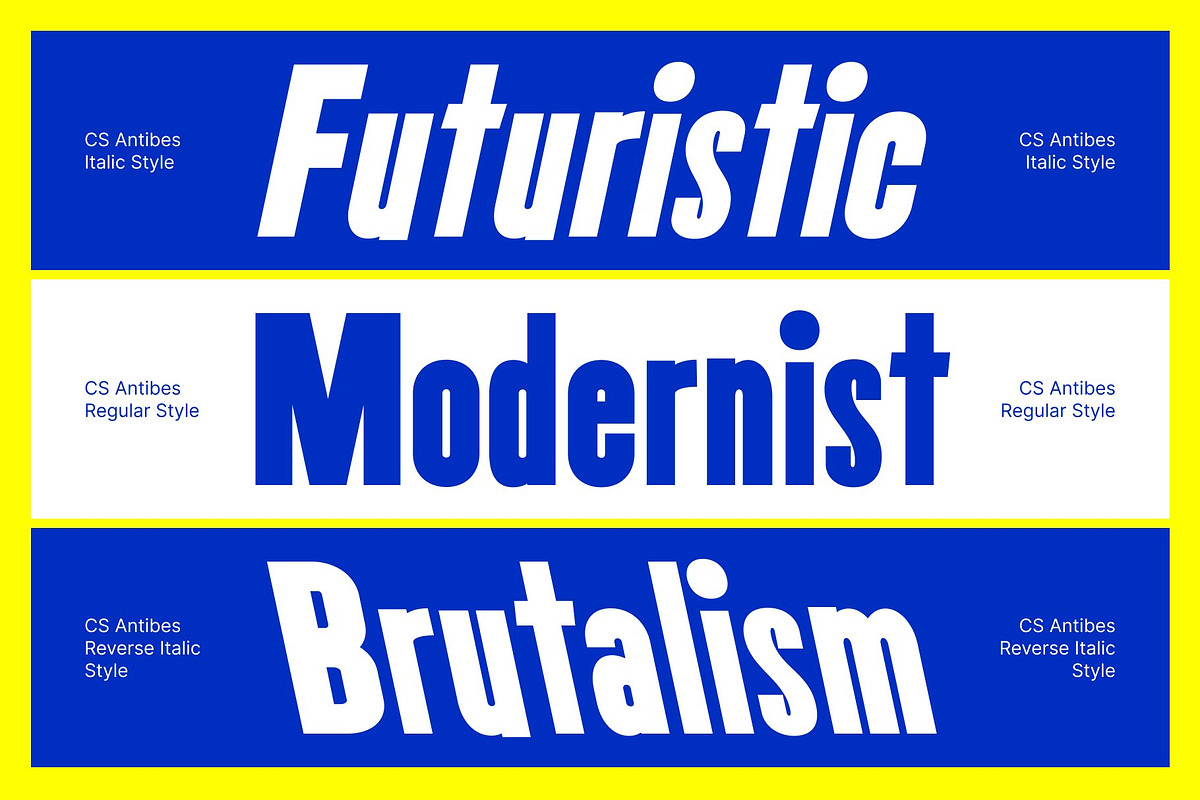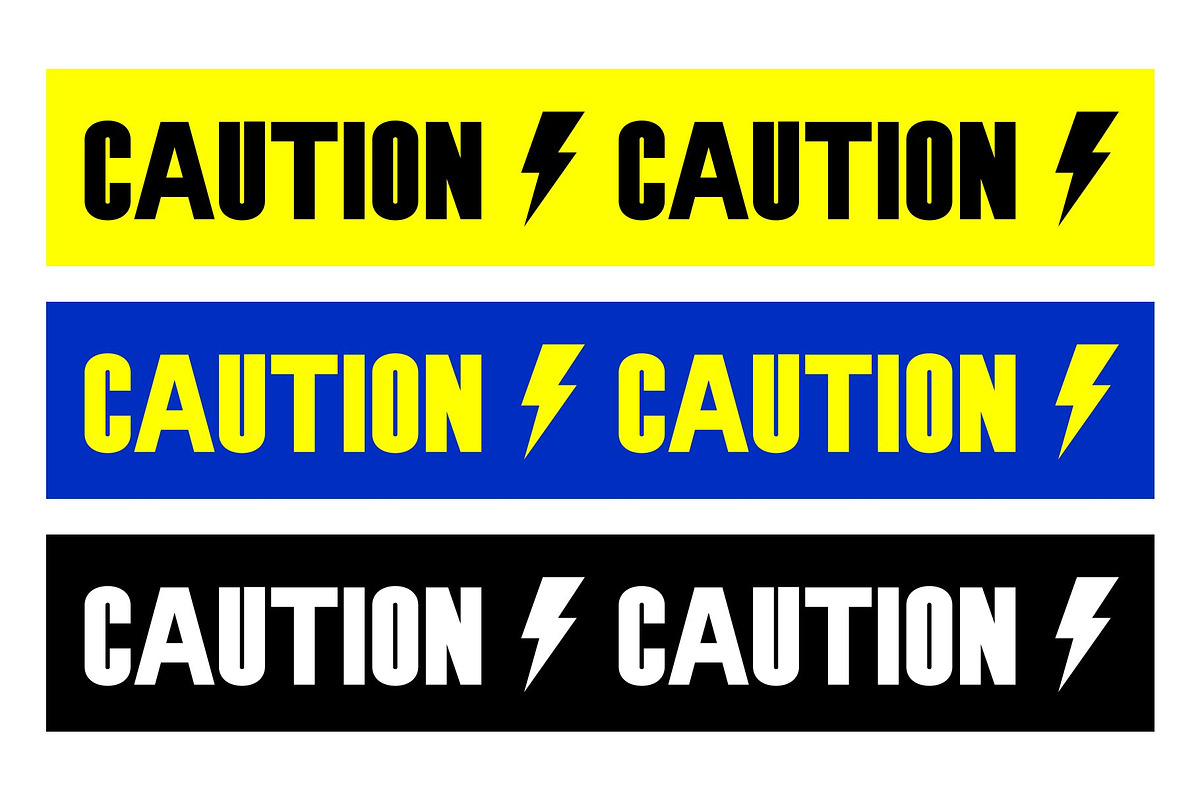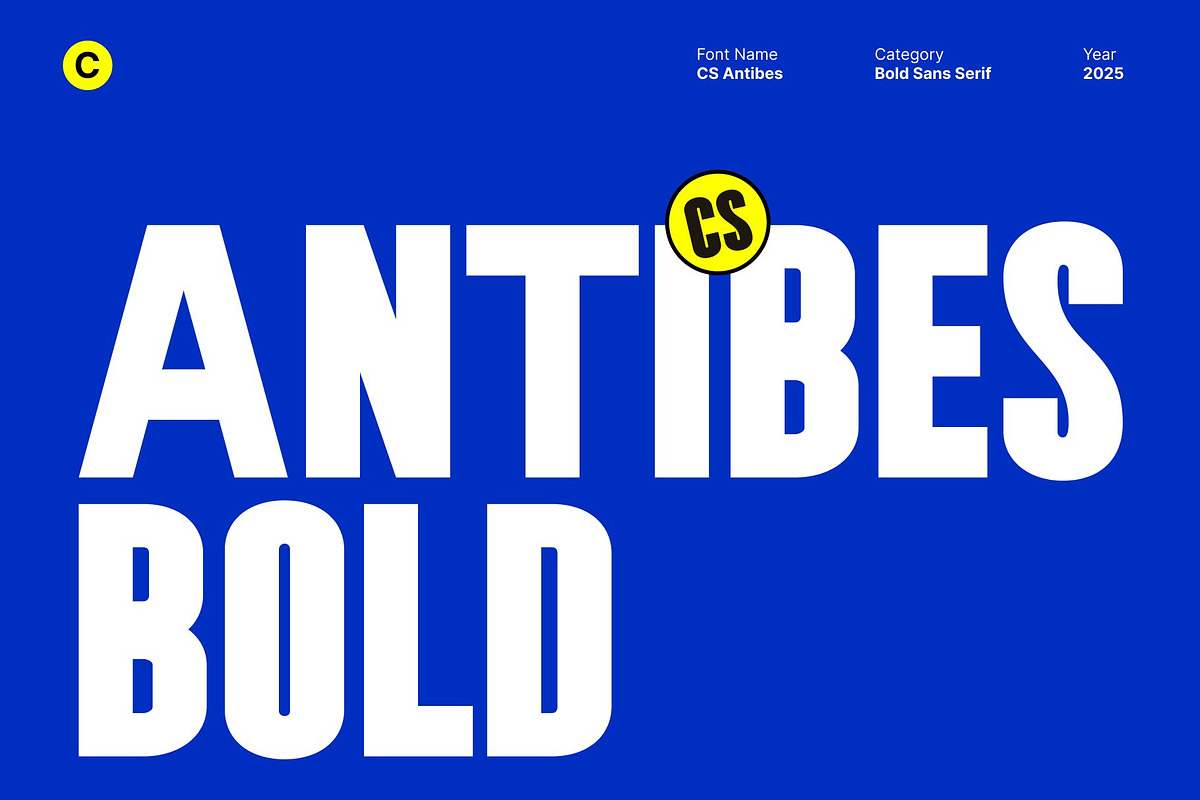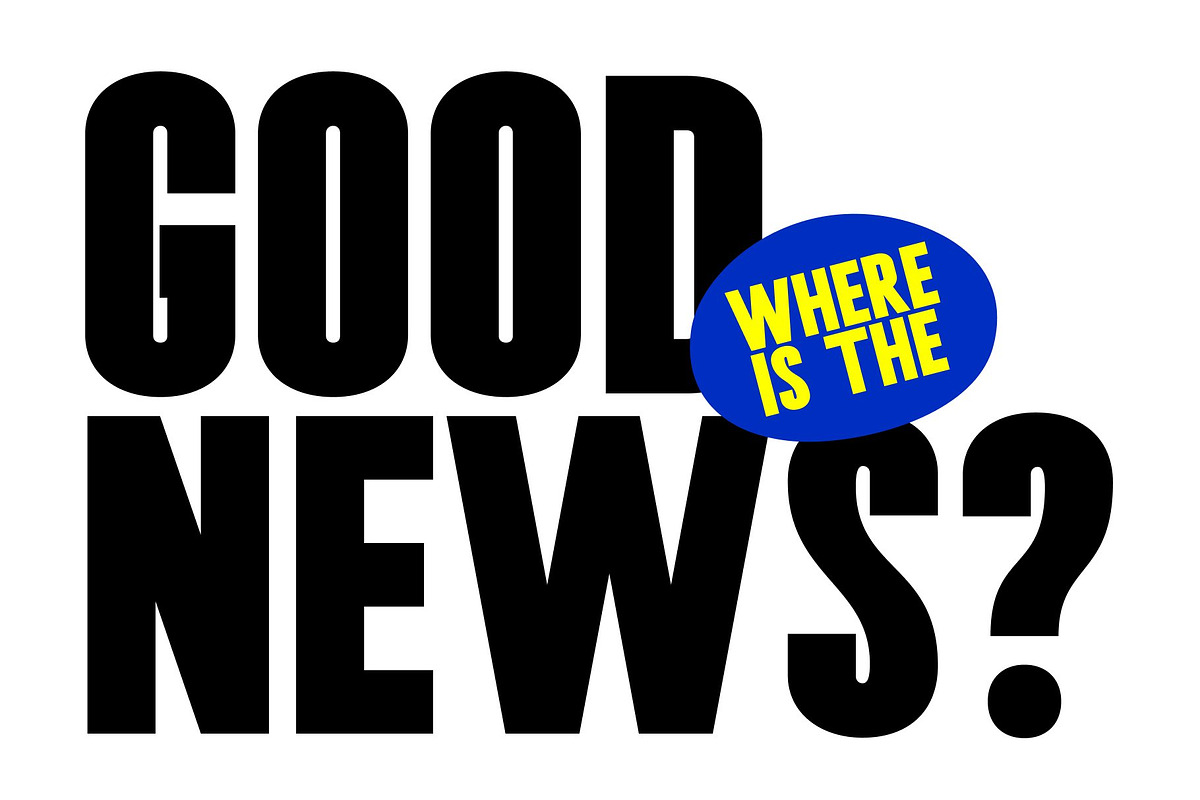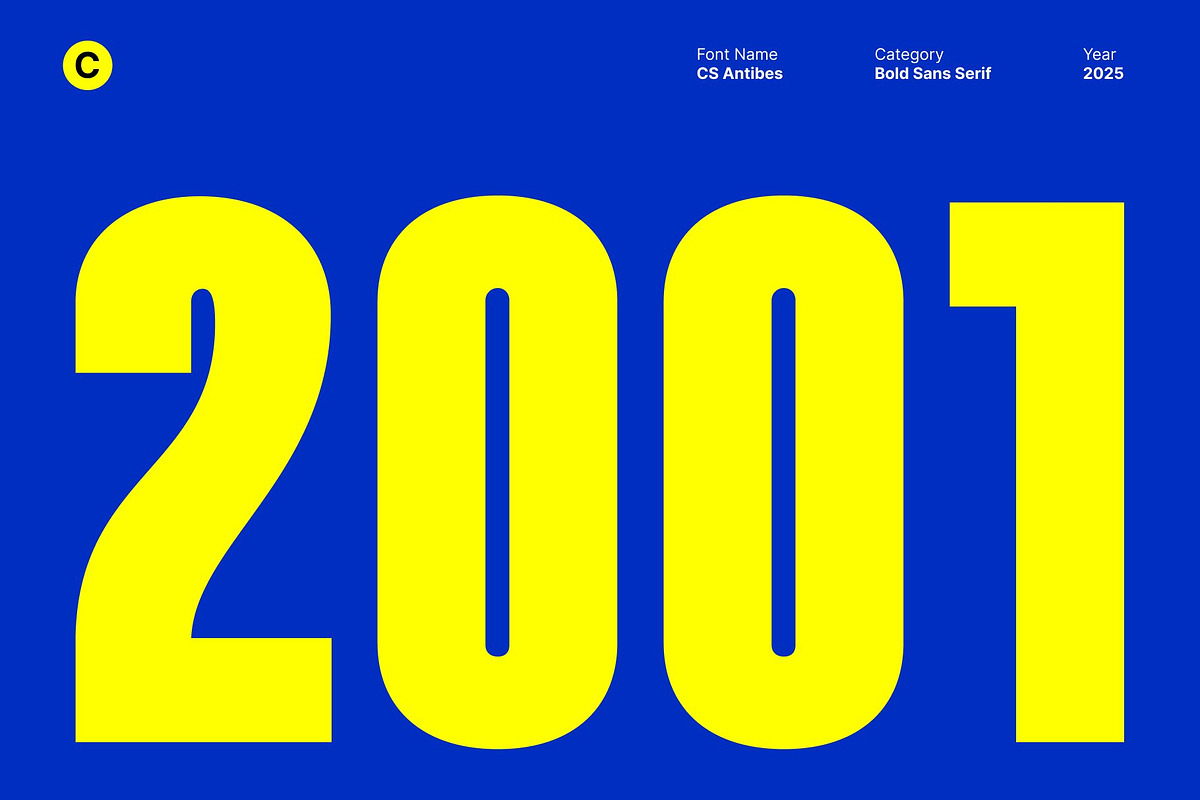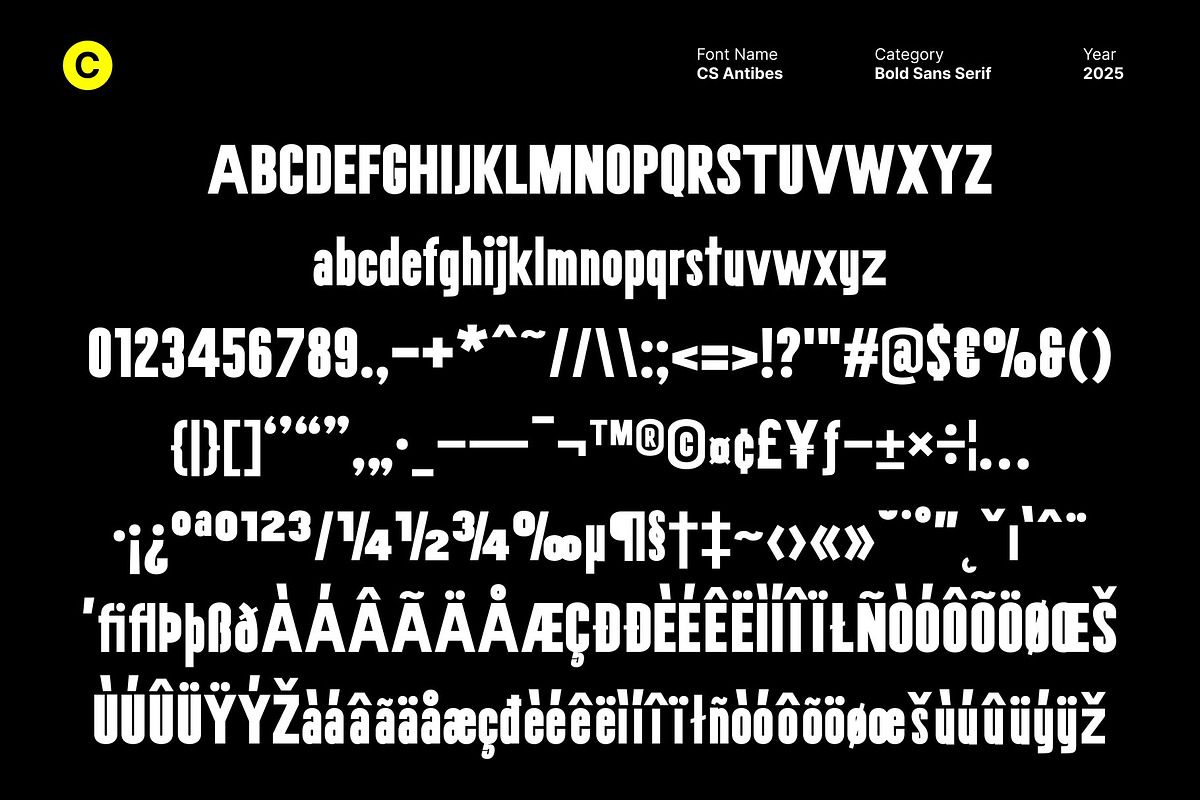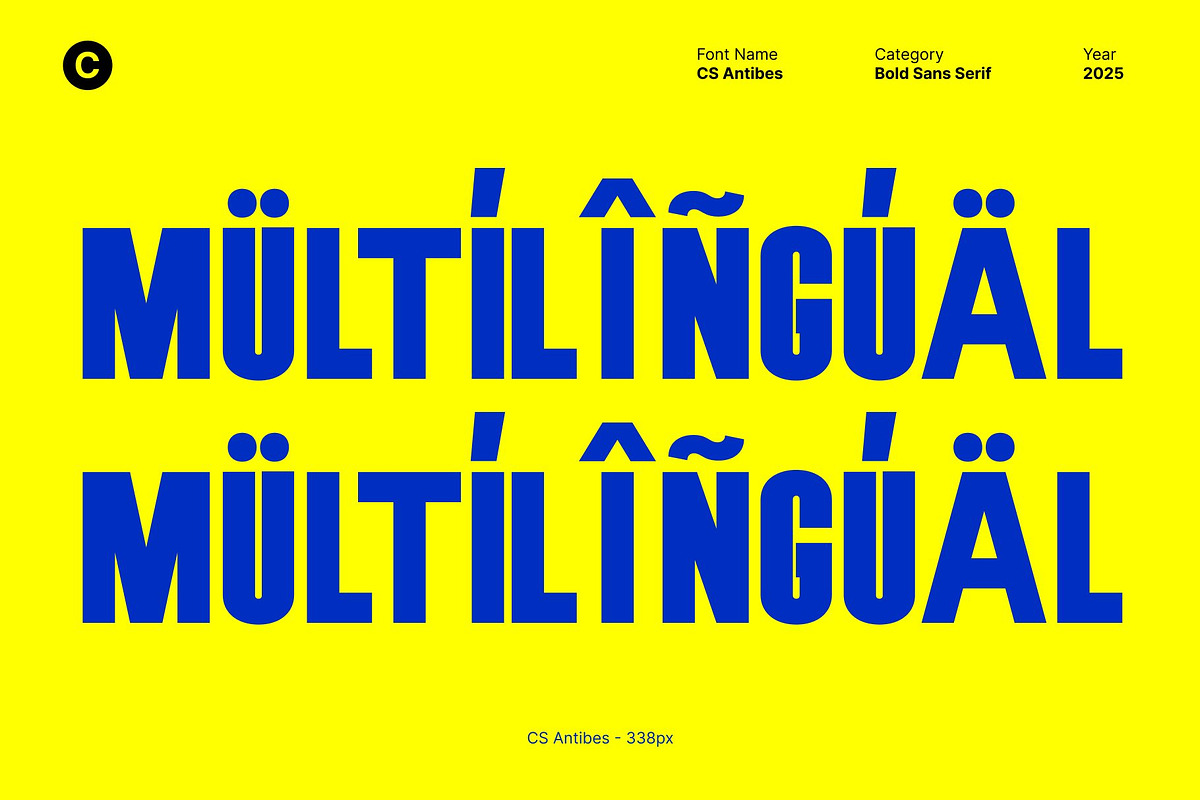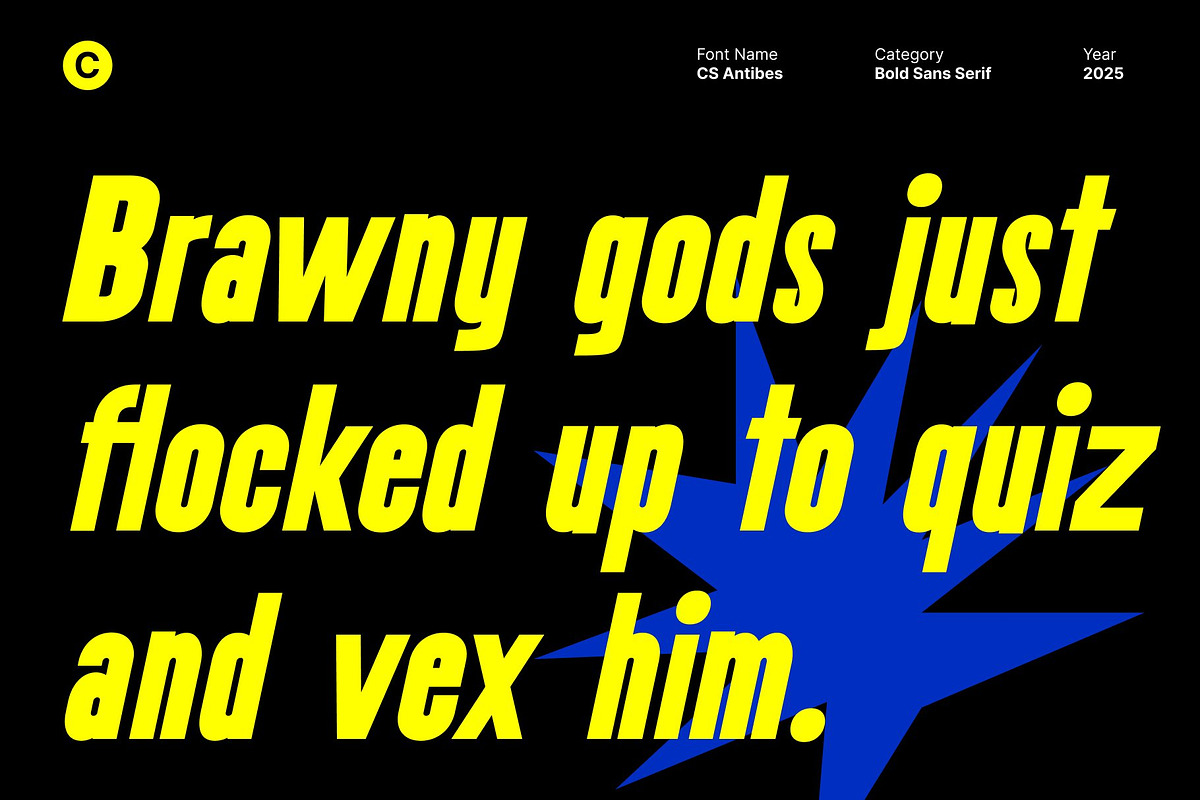
CS Antibes – Bold Sans Serif
CS Antibes – Bold Modernity with Expressive Impact
Bold Sans Serif with Striking Presence This is a bold sans serif display font crafted to command attention. Its condensed proportions and confident structure create a strong visual rhythm, giving every composition a sense of purpose and power. Designed for clarity and impact, this typeface delivers messages with unmistakable confidence.
Modern Design with Contemporary Energy With its clean lines and dynamic condensed form, this font captures the spirit of modern design. Each letter feels deliberate and precise, while maintaining a lively, expressive tone. The result is a font that balances professionalism with bold creativity ideal for designers seeking a modern, eye-catching style.
Condensed Shapes for Maximum Efficiency The narrow build of this font allows for striking headlines and compact layouts without sacrificing readability. Its condensed design enhances space efficiency, making it perfect for bold titles, branding materials, and poster designs that demand both power and elegance.
Perfect for Bold and Expressive Projects From modern branding and advertising to editorial headlines and event posters, this font brings a contemporary edge to every project. Its bold weight, condensed shape, and vibrant personality make it the perfect choice for designs that aim to be seen, remembered, and admired.